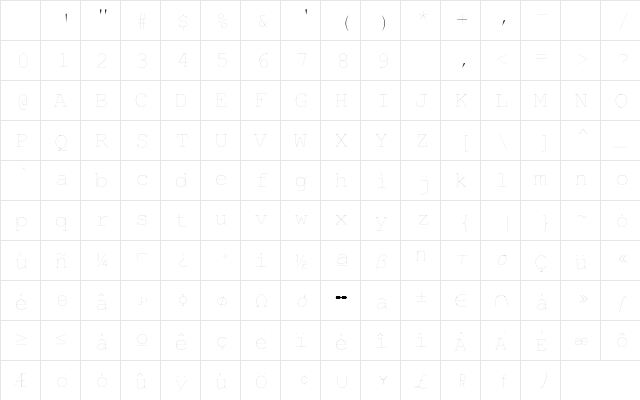
Kleaner Regular
Design Context for Kleaner
Kleaner is a composed and adaptable typeface that performs quietly and consistently across a wide range of design contexts.